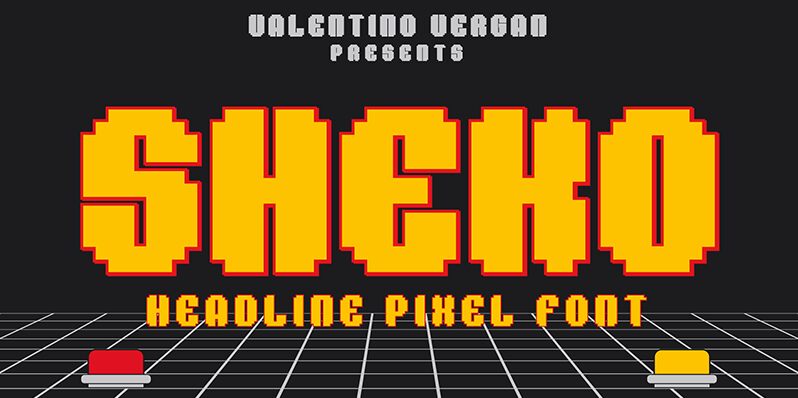
Sheko font by Valentino Vergan is a free techno display font that integrates blocky geometric shapes into each character. The bold elements and pixelated-style letters are retro-inspired with an evident gaming influence. Combined in texts, it forms natural connections that make the presented words more visually noticeable.
Consider applying Sheko font to game titles and onscreen content, magazine covers, futuristic event invitations and posters, album art, or technology-based branding projects like app design or website headers. Other excellent use cases include comic books or faux-3D designs where limited depth tricks are required.